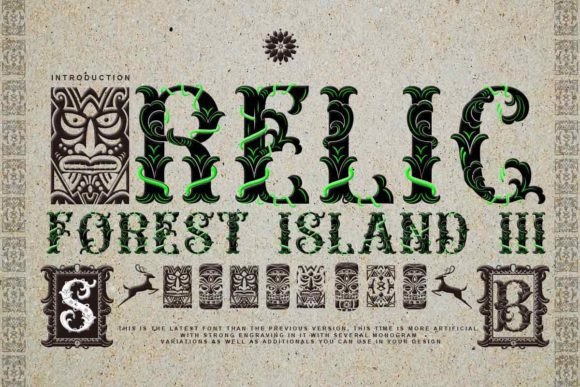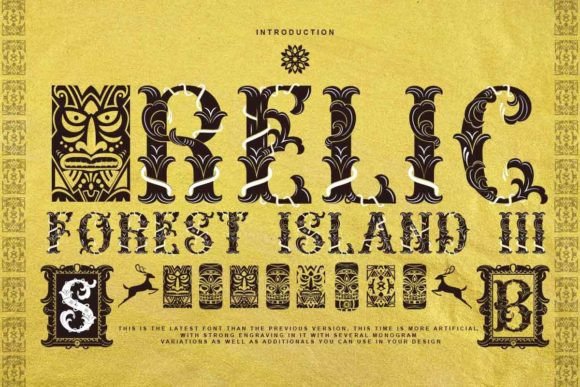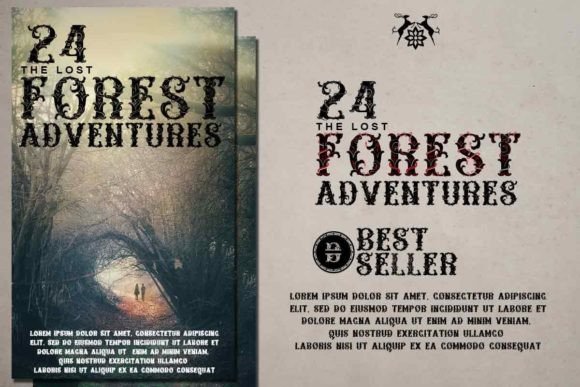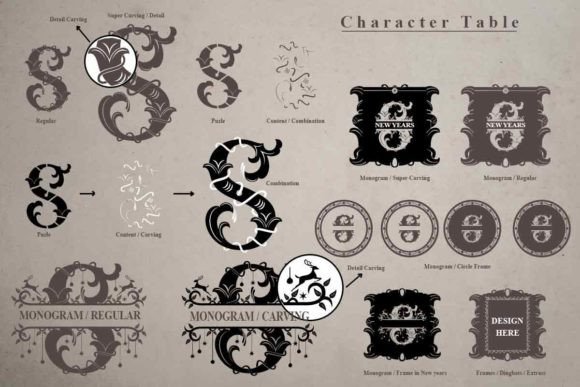
Relic Forest Island Iii Font
About the Relic Forest Island Iii Font
Discover the charm of Relic Forest Island Iii Font. This font is a perfect blend of modern aesthetics and classic appeal. Relic forest island III is a cool, unique, and incredibly intricate decorative display font. This font comes with a more detailed touch with very charming carvings, several monograms, and families that you can choose according to your liking and design needs. Add it confidently to your projects and you will be astounded by the generated outcome!
Relic Forest Island III’s intricate detail makes it ideal for headlines, logos, and short, impactful text on packaging or posters. Its decorative nature lends itself well to projects requiring a touch of vintage charm or whimsical elegance. Avoid using it for body copy or long paragraphs; its ornate style would hinder readability.
This font possesses a bold yet playful personality. To balance its intricacy, consider pairing it with a clean sans-serif like Montserrat for body text or a classic serif such as Garamond for a more traditional feel. For a more modern contrast, a geometric sans-serif like Futura could also work well.
Alternatively, a simple script font could add a touch of refined elegance, depending on the desired overall aesthetic. Remember that the font’s inherent detail should be the focal point, so choose pairings that complement rather than compete with its unique qualities.
Relic Forest Island Iii Font Usage Examples
Relic Forest Island Iii Font Example